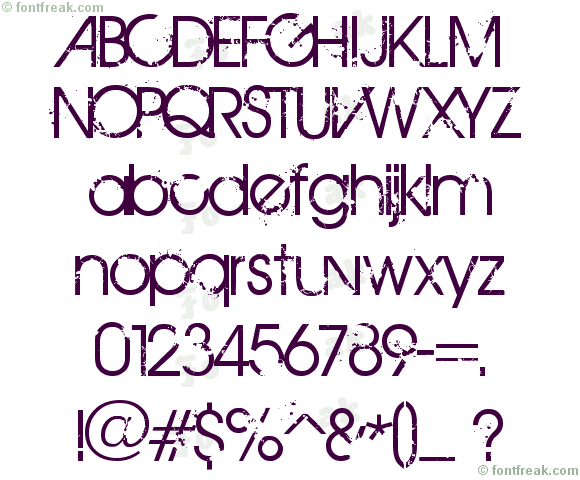
BIRTH OF A HERO
The Birth Of A Hero font, created by Last Soundtrack, is a striking display typeface that captures attention with its bold and dynamic design. This font falls under the decorative category, characterized by its unique artistic flair and theatrical presence. With a strong stroke weight and a moderate contrast, the characters boast a commanding appearance that makes it suitable for eye-catching headlines and titles. The spacing between the letters is thoughtfully designed, allowing for excellent legibility while maintaining an adventurous spirit. The font features distinctive decorative elements that evoke a sense of heroism and grandeur, making it perfect for projects that aim to inspire and engage.
The Birth Of A Hero font excels in various creative applications. It is ideal for movie posters, where its boldness can convey action and excitement. Graphic designers will find it exceptional for branding projects, especially for businesses looking to evoke a sense of adventure or innovation. Additionally, it works wonderfully for children's book covers, where its playful yet heroic style can captivate young readers. Wedding invitations that wish to stand out with a unique flair can also benefit from this font, adding a touch of drama to the overall design.
What truly sets the Birth Of A Hero font apart is its ability to convey a narrative through design. With its engaging visual characteristics and versatility, it invites viewers to explore and immerse themselves in the story behind the text. Don't miss the opportunity to elevate your next project with the Birth Of A Hero font free download – a true gem for any creative arsenal.